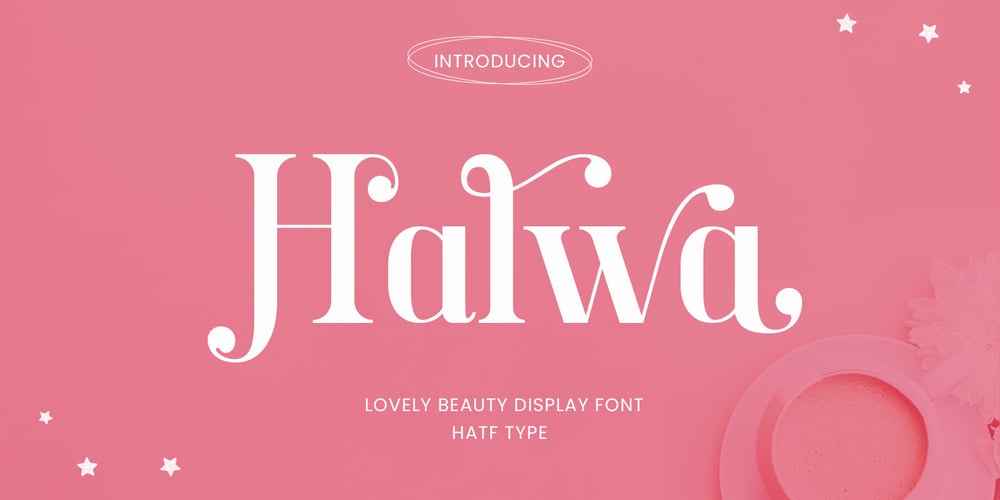
Halwa Font Family was designed by Asep Rendi and published by Hatftype. Halwa contains 1 styles and family package options. Introducing the exquisite Halwa Lovely Beauty Display Font – your ticket to invigorating elegance and sophistication. Every character of this font radiates an aura of regal beauty and grace. With its delicate intricacies to beguile the eyes and timeless design, Halwa readily steals attention and hearts.Crafted meticulously, each line is smooth, and proportions are harmonious, fostering a sense of soft elegance. Every letter in the Halwa Lovely Beauty Display Font portfolio is a standalone piece of art, the careful craftsmanship giving it an unique artistic aura. For design projects that need a brush stroke of beauty, be it enticing logo designs, charming magazine titles, romantic wedding invitations, or compelling beauty product marketing materials, Halwa is your go-to font. It ingeniously blends beauty with lucidity, making it a practical beauty for conveying messages in the most engaging way possible. Halwa Lovely Beauty Display Font stands out in the world of fonts, not merely for its stunning letter shapes but for the deep sense of beauty it embedidoes, setting it apart from everyday fonts. It’s a font that intuitively adds an element of refined elegance to all your graphic design projects.